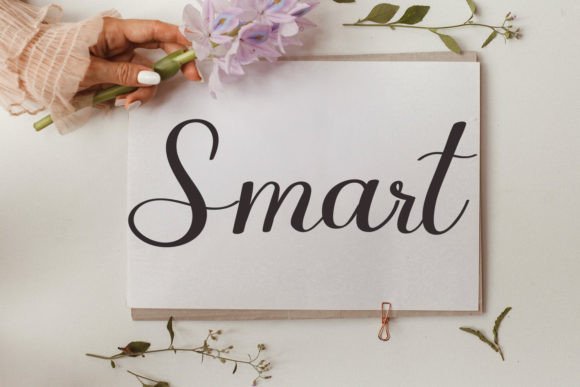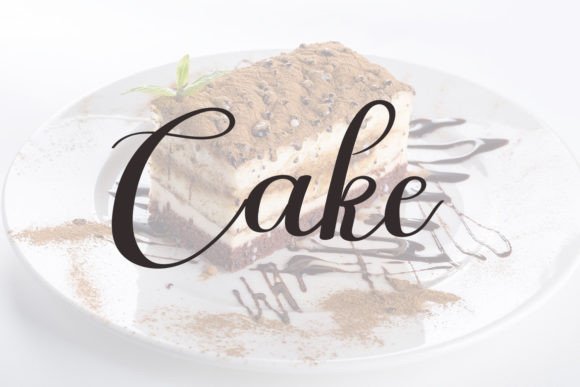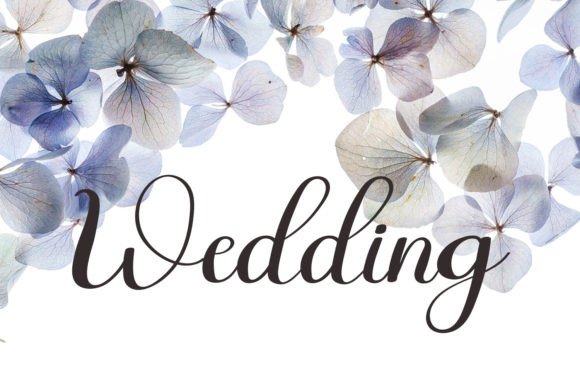
Babe Font: The Perfect Handwritten Font for Your Design Needs
Are you looking for a fresh and beautiful handwritten font to elevate your designs? Look no further than Babe Font! This stunning font is perfect for a wide range of design purposes, from YouTube banners and cover logos to wedding invitations, ID cards, flyers, crafts, and so much more.
What Makes Babe Font So Special?
Babe Font is a unique and elegant handwritten font that is sure to capture the attention of your audience. Its fresh and beautiful design makes it perfect for designers and crafters who want to add a personal touch to their work. With its clean and smooth lines, Babe Font is easy to read and looks great in both digital and print formats.
Uses for Babe Font
Babe Font is incredibly versatile and can be used for a wide range of design projects, including:
- YouTube banners and cover logos: Add a personal touch to your YouTube channel with a custom banner or cover logo featuring Babe Font.
- Wedding invitations: Make your wedding invitations truly special with Babe Font’s elegant and romantic design.
- ID cards: Create professional and stylish ID cards for your employees or students with Babe Font.
- Flyers: Grab the attention of your audience with eye-catching flyers featuring Babe Font.
- Crafts: Add a personal touch to your crafts, such as scrapbooking, card making, and journaling, with Babe Font.
Why Choose Babe Font?
There are many reasons why Babe Font is the perfect choice for your design needs. Here are just a few:
- Unique and elegant design: Babe Font’s fresh and beautiful design sets it apart from other fonts.
- Easy to read: Babe Font’s clean and smooth lines make it easy to read, even at small sizes.
- Versatile: Babe Font can be used for a wide range of design projects, from digital to print.
- High-quality: Babe Font is a high-quality font that is perfect for professional designers and crafters.
Tips for Using Babe Font
Here are a few tips for getting the most out of Babe Font:
- Experiment with different sizes and colors: Babe Font looks great in a variety of sizes and colors, so don’t be afraid to experiment and find the perfect combination for your design.
- Pair with other fonts: Babe Font pairs well with other fonts, so try combining it with a bold font for headings and a clean font for body text.
- Use for digital and print projects: Babe Font is perfect for both digital and print projects, so feel free to use it for everything from social media graphics to business cards.
Babe Font is a fresh and beautiful handwritten font that is perfect for designers and crafters who want to add a personal touch to their work. With its unique and elegant design, ease of use, and versatility, Babe Font is the perfect choice for a wide range of design projects. Whether you’re creating YouTube banners, wedding invitations, or crafts, Babe Font is sure to elevate your designs and capture the attention of your audience.